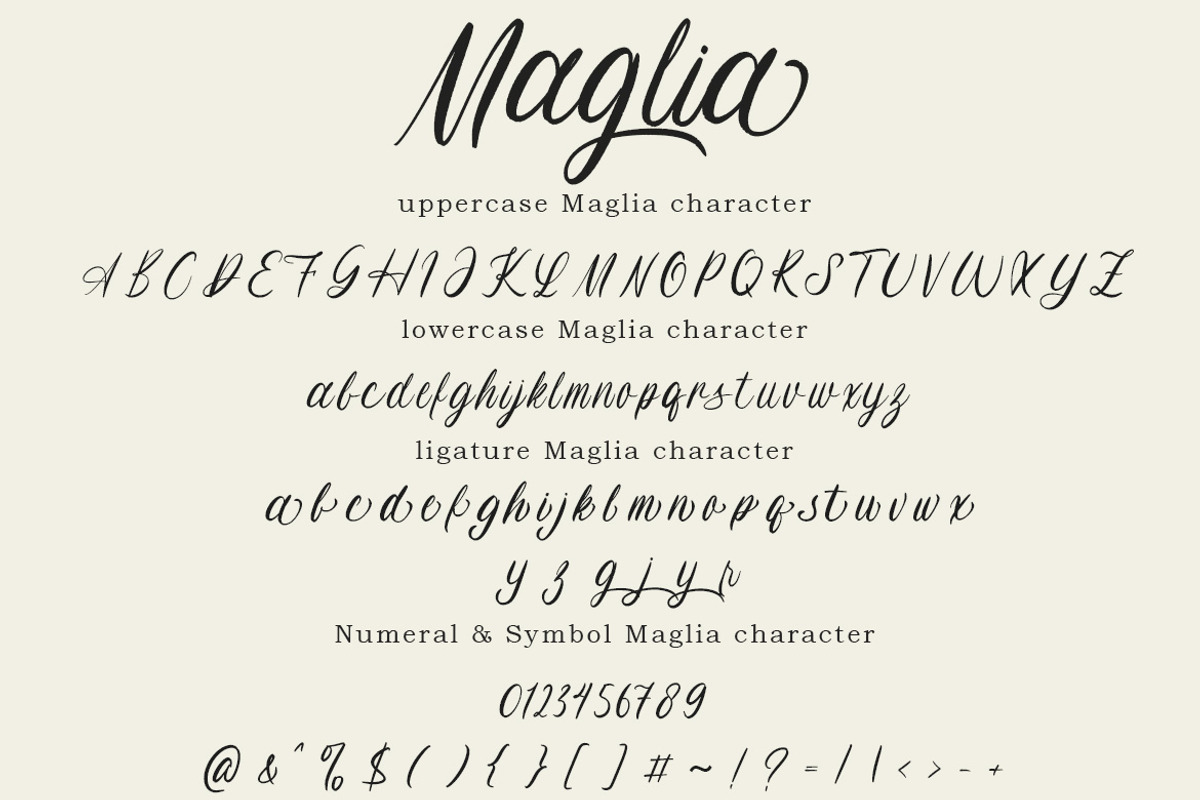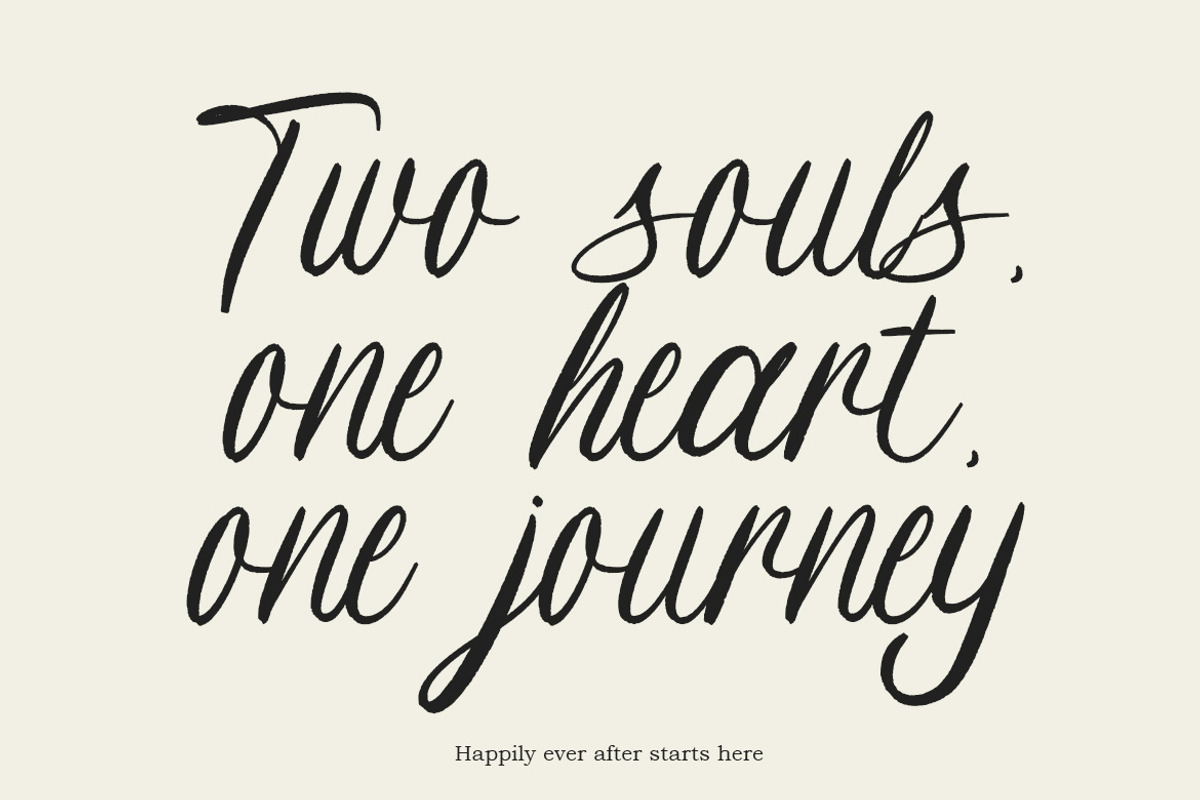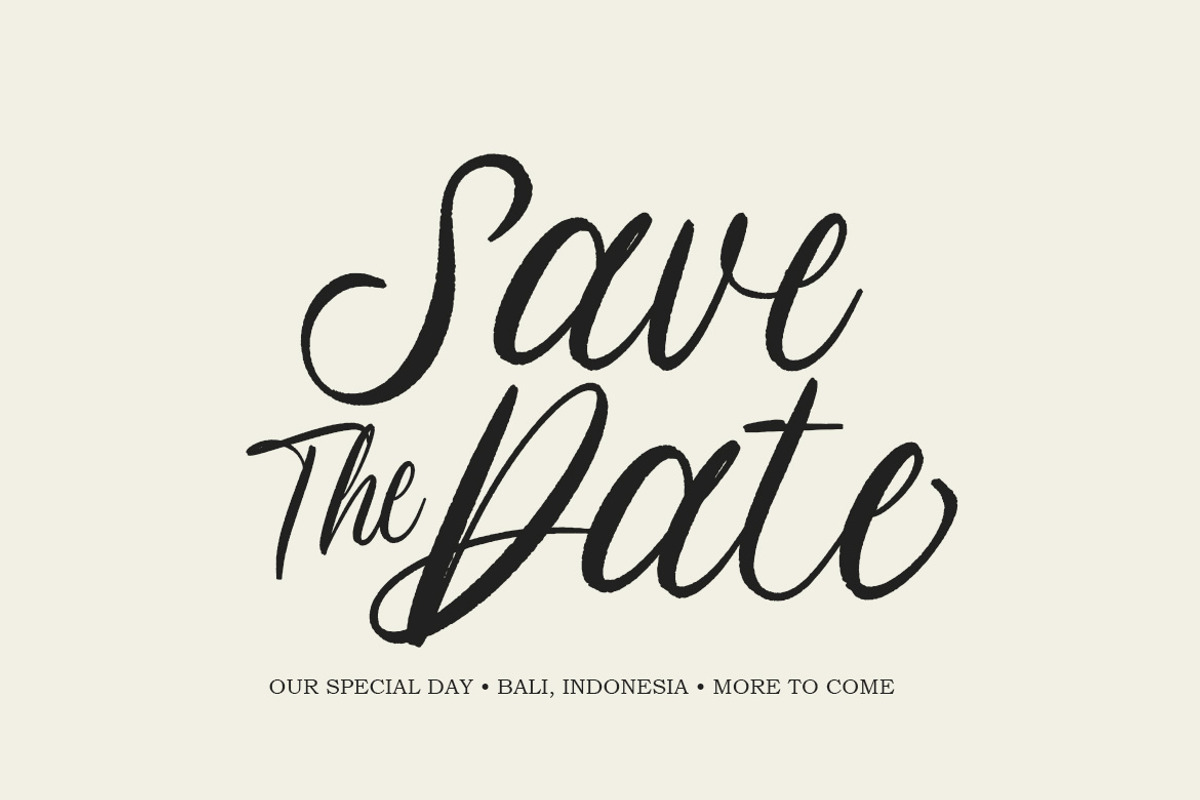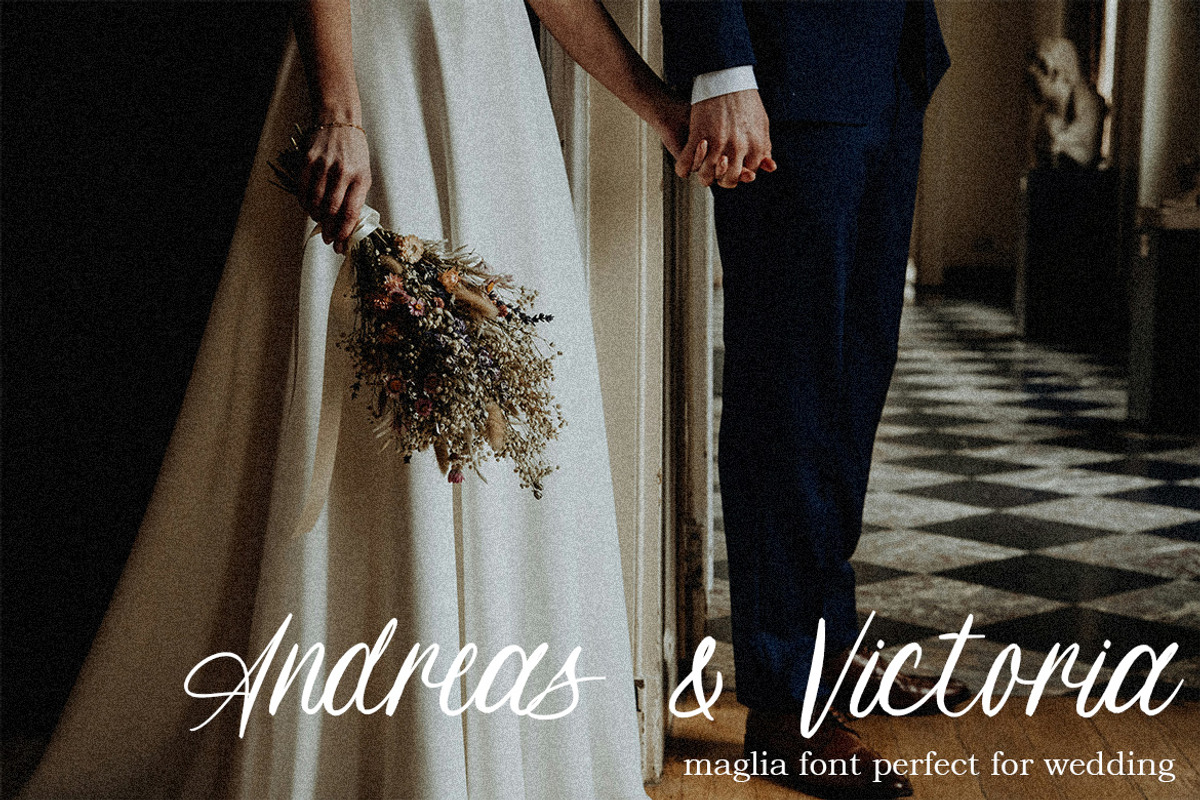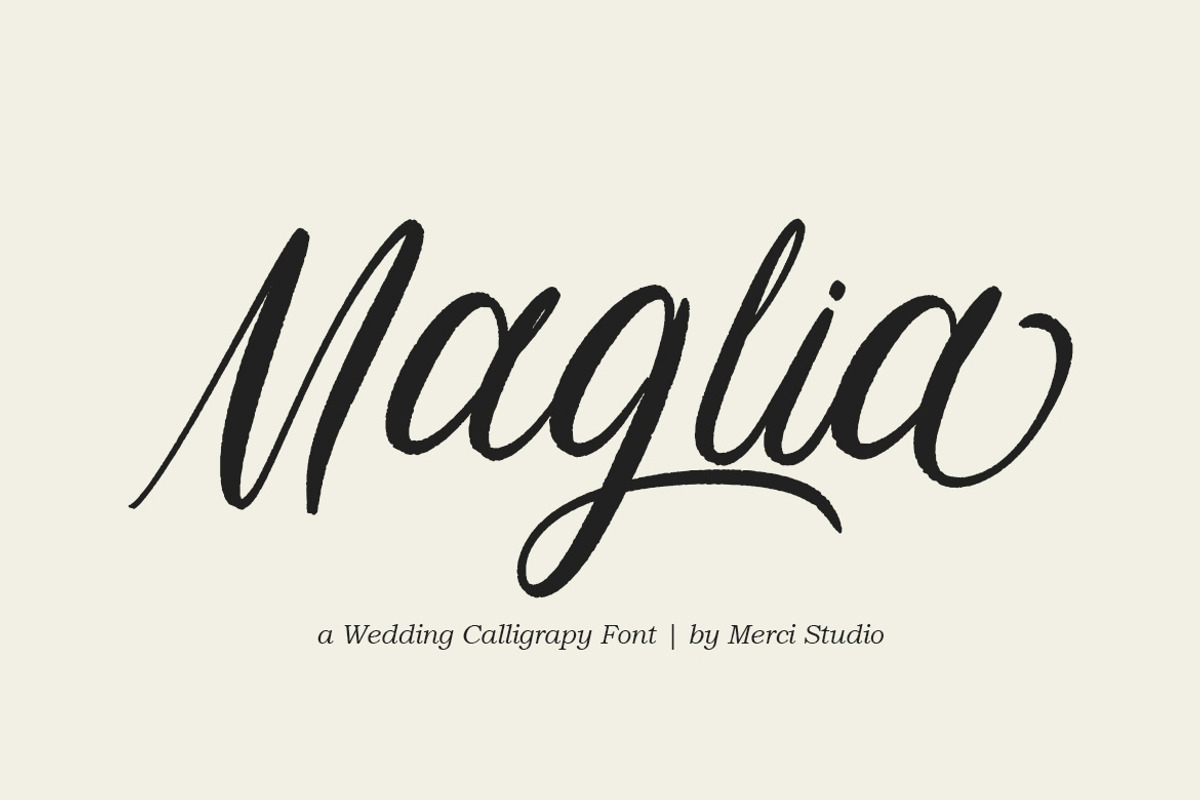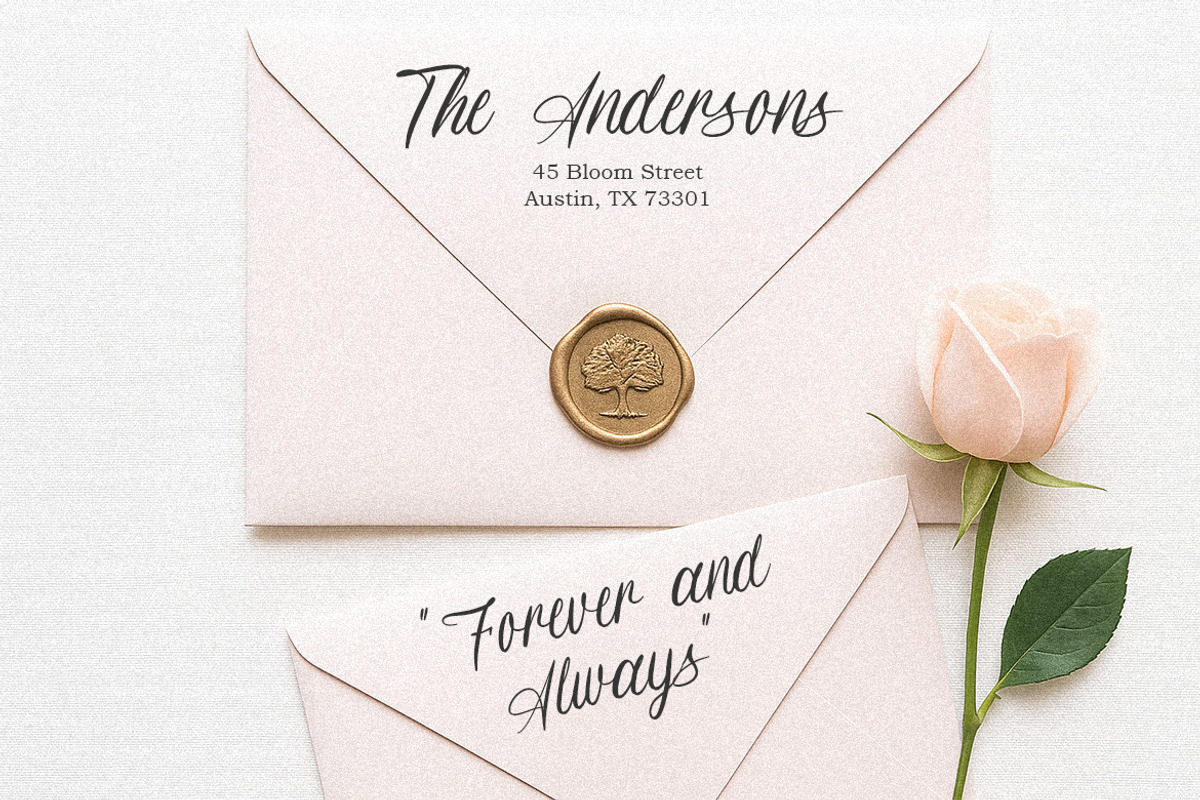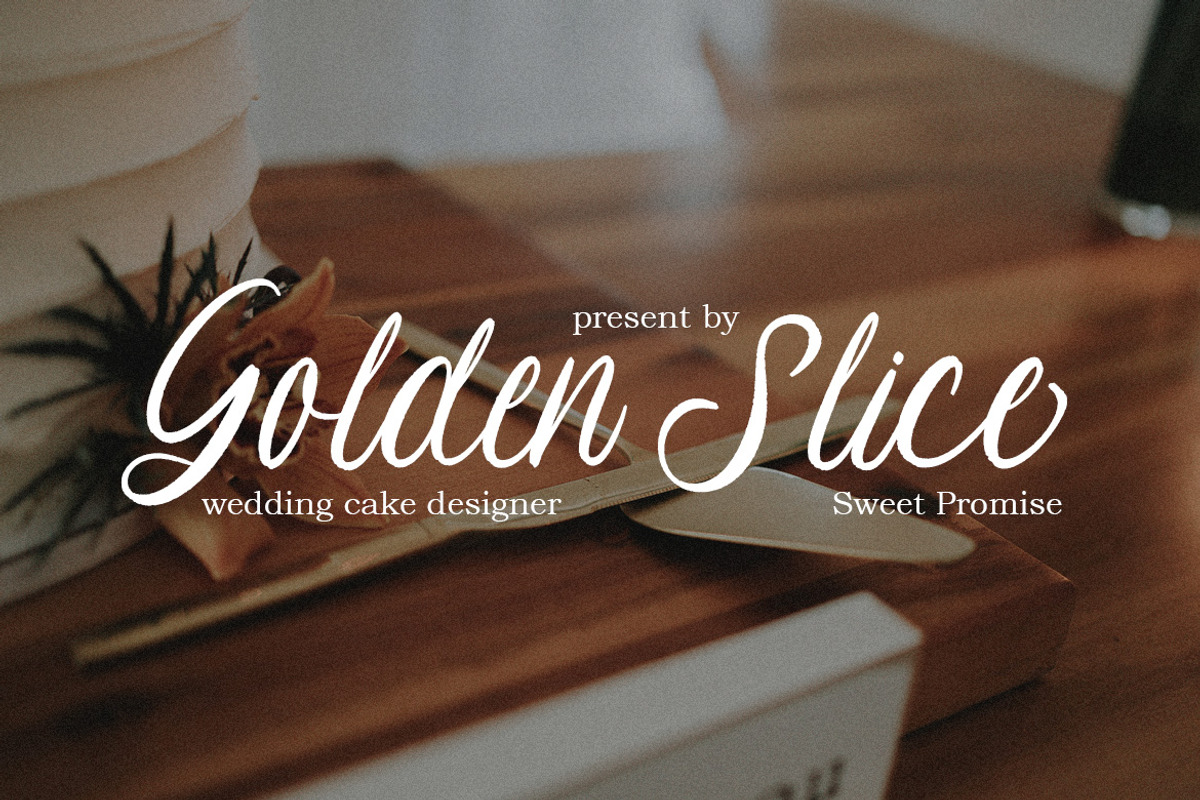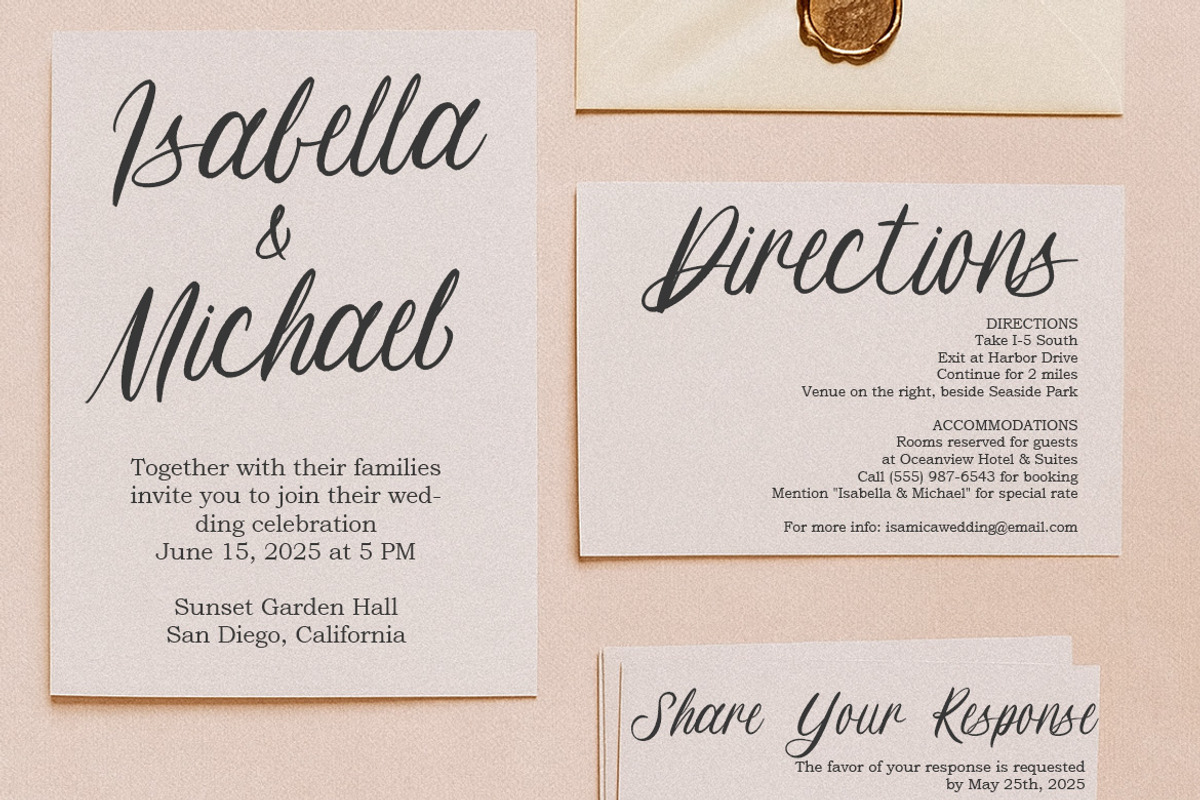
Maglia – Wedding Calligraphy Font
Maglia – Elegant Wedding Calligraphy Font
Maglia is a beautifully crafted calligraphy font designed to bring a sense of romance, charm, and timeless sophistication to your creative projects. With its graceful strokes and flowing letterforms, this font captures the essence of elegance, making it an ideal choice for wedding invitations, bridal stationery, and any design that calls for a touch of refined beauty. Maglia’s fluid style reflects warmth and intimacy, perfectly balancing modern trends with classic calligraphy artistry. Whether you are working on branding, personal notes, or event materials, this font ensures your message is delivered with heartfelt sophistication and delicate charm.
Its versatility makes Maglia not only suitable for wedding themes but also perfect for logos, greeting cards, fashion branding, and luxury packaging. With its natural calligraphic rhythm, Maglia communicates love, sincerity, and artistic finesse in every stroke, giving your designs an unmistakable identity that feels both personal and professionally polished.
* Uppercase Letters
* Numbers & Punctuation
* Ligature & Alternate Character
* Unique Hand-Drawn Style